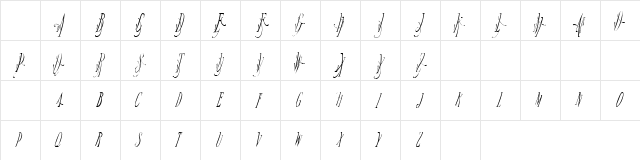
Broadway Monograms Plain
Design Context for Broadway Monograms Typeface
Broadway Monograms uses fixed-width spacing throughout, giving it the structured, systematic character associated with coding environments and technical documentation.
Pro Tip: Use Broadway Monograms with slightly increased line-height for extended reading — fixed-width spacing can feel dense in longer passages without extra breathing room.